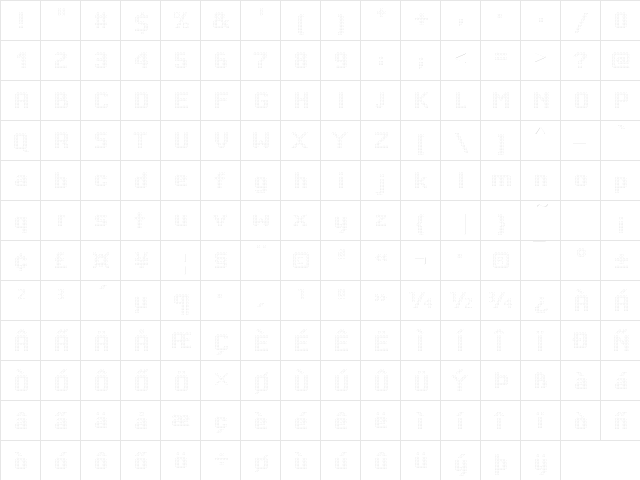
Yardmaster Becker Only Shadow Regular
Design Context for Yardmaster Becker Only Shadow Typeface
Yardmaster Becker Only Shadow brings ornamental detail and strong personality to headlines and identities, where visual impact matters more than quiet functionality.
Font Pairing: Pair with a clean neutral sans-serif for body copy to let Yardmaster Becker Only Shadow's character lead without overwhelming the composition.
Pro Tip: Use Yardmaster Becker Only Shadow exclusively at display sizes — it was designed to be seen, not read at length. Let a neutral companion handle body copy.